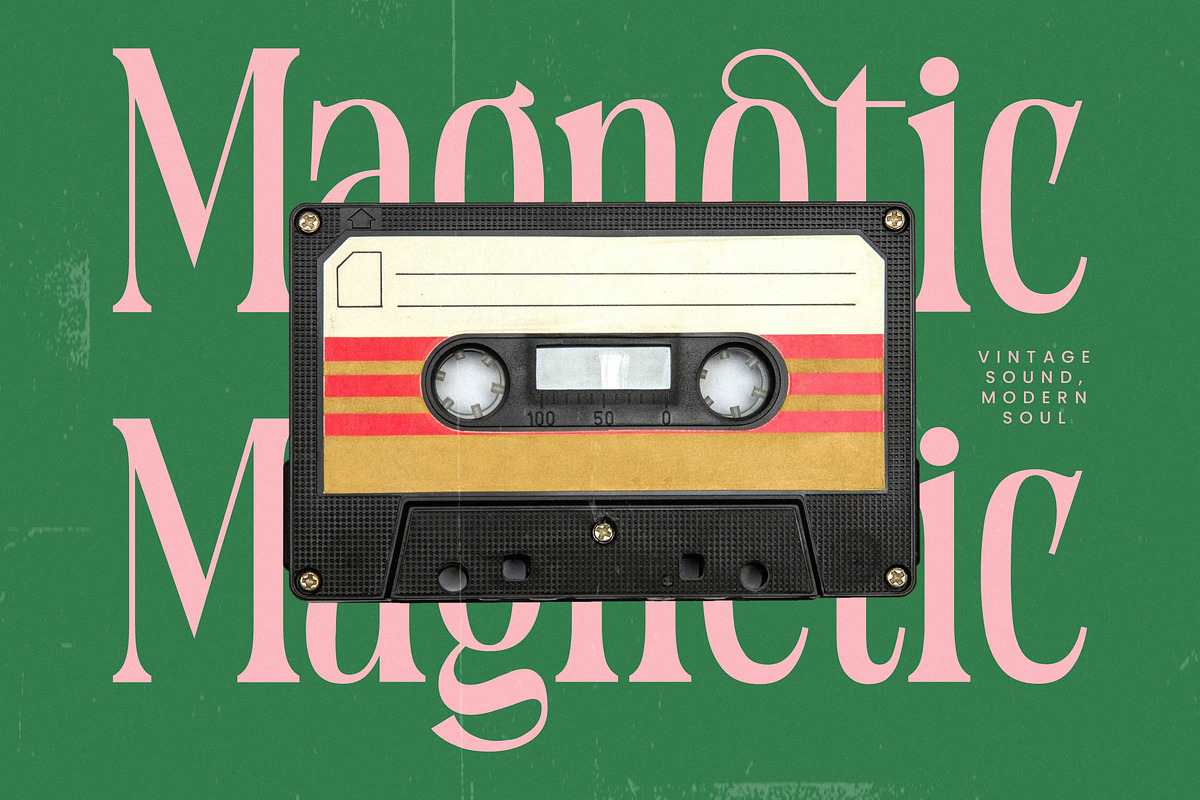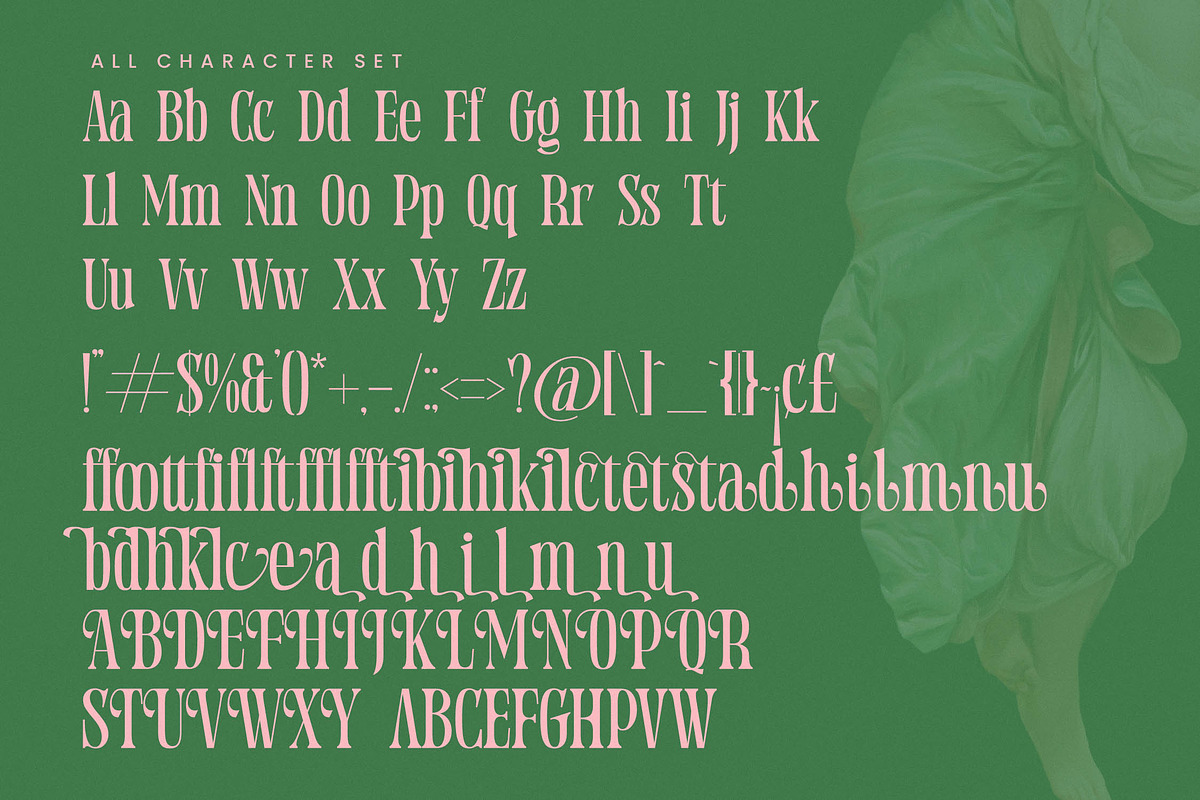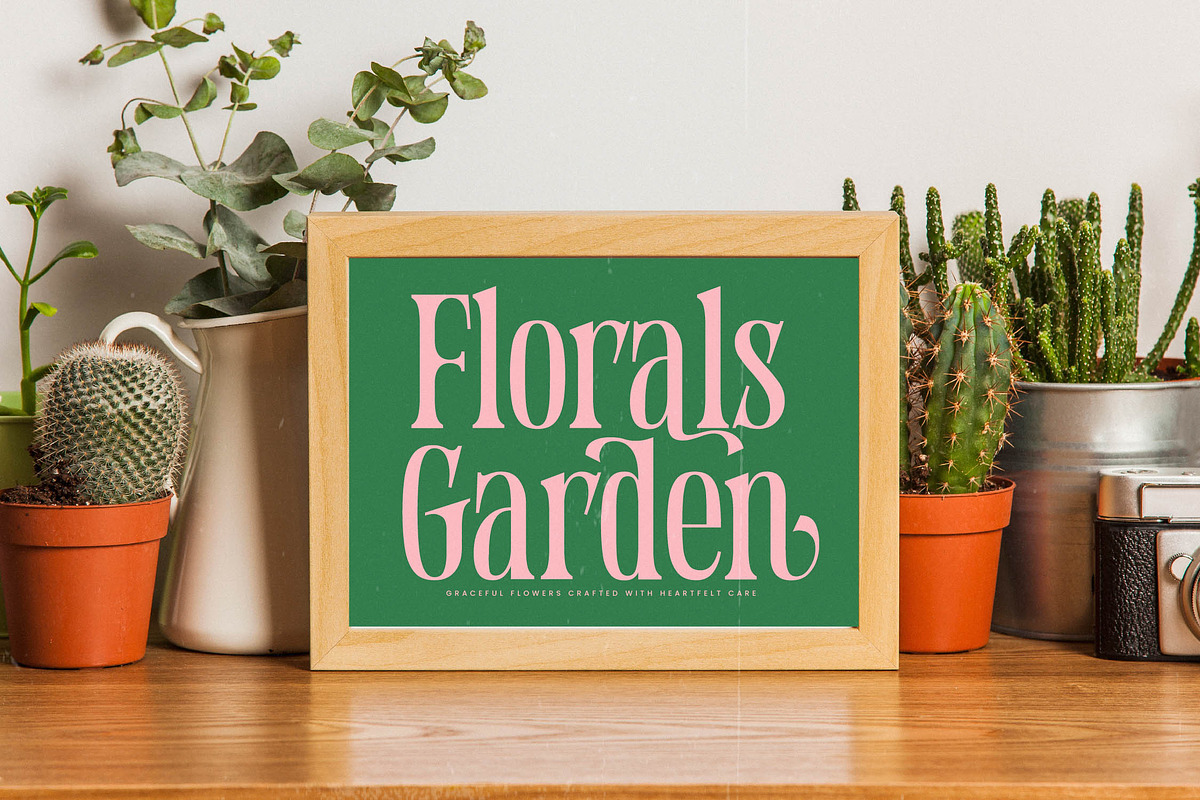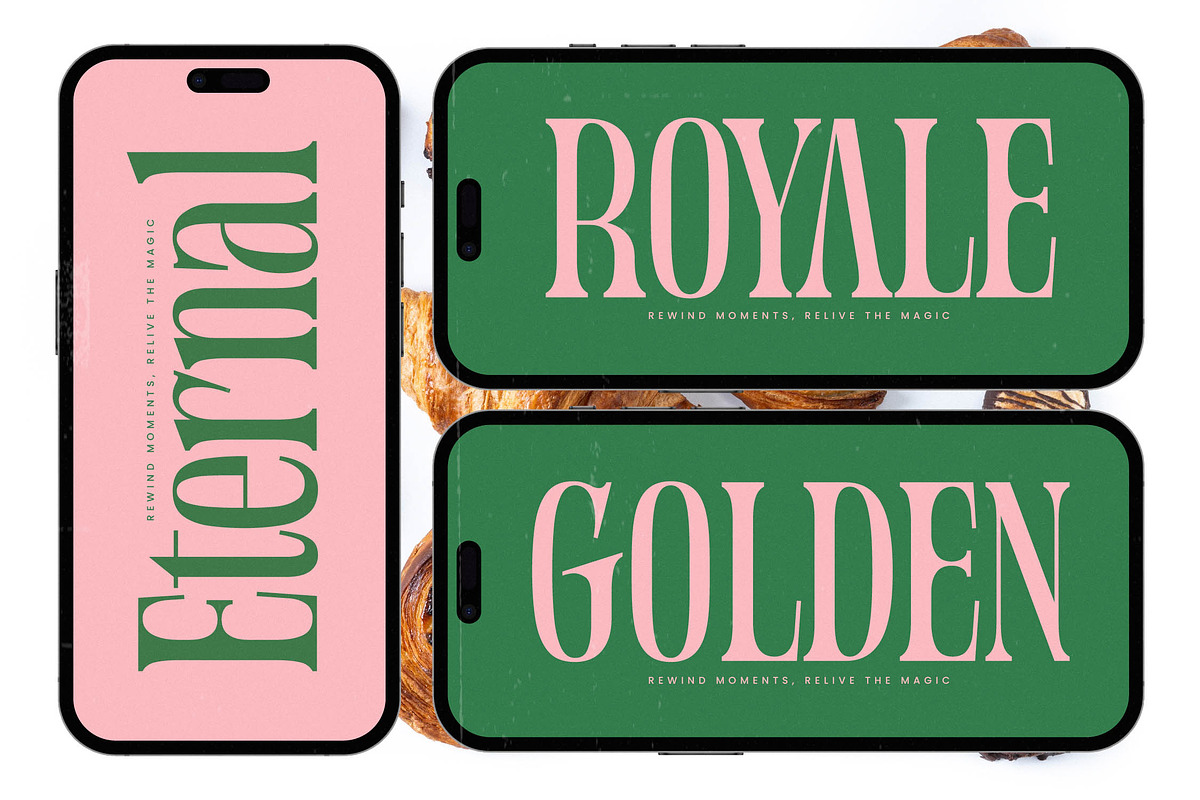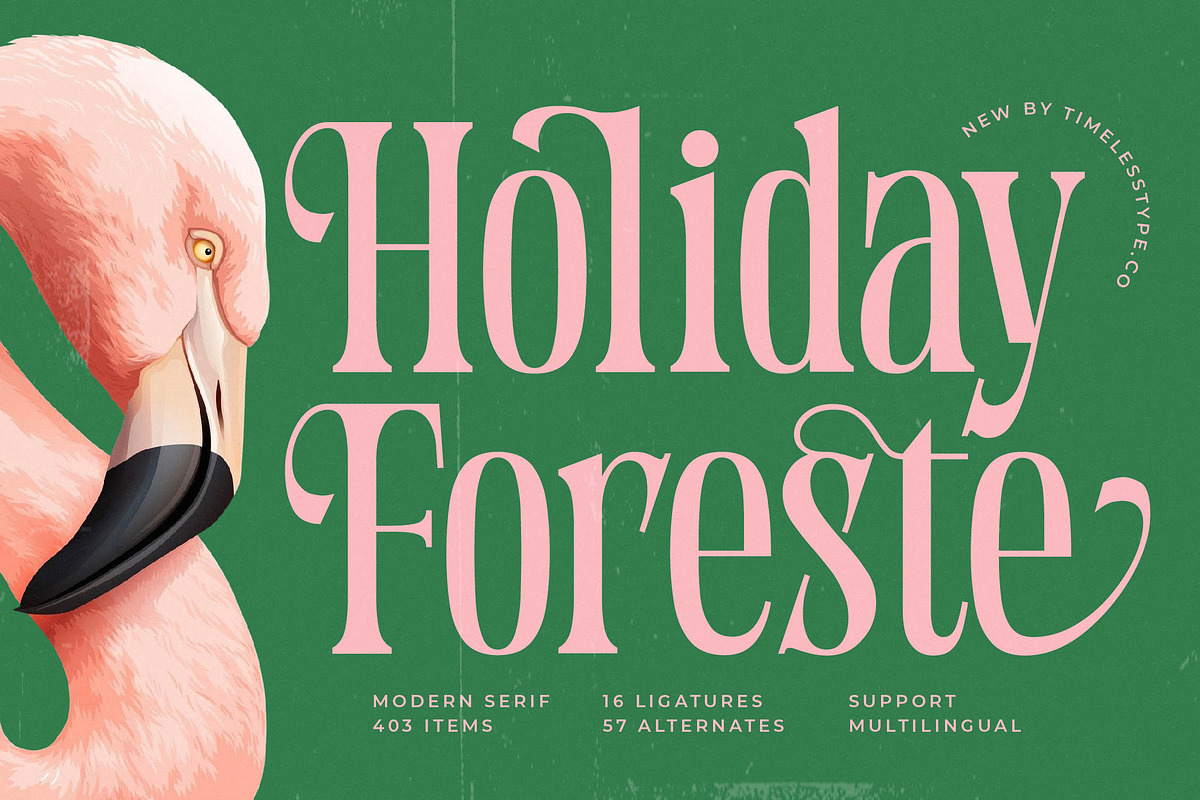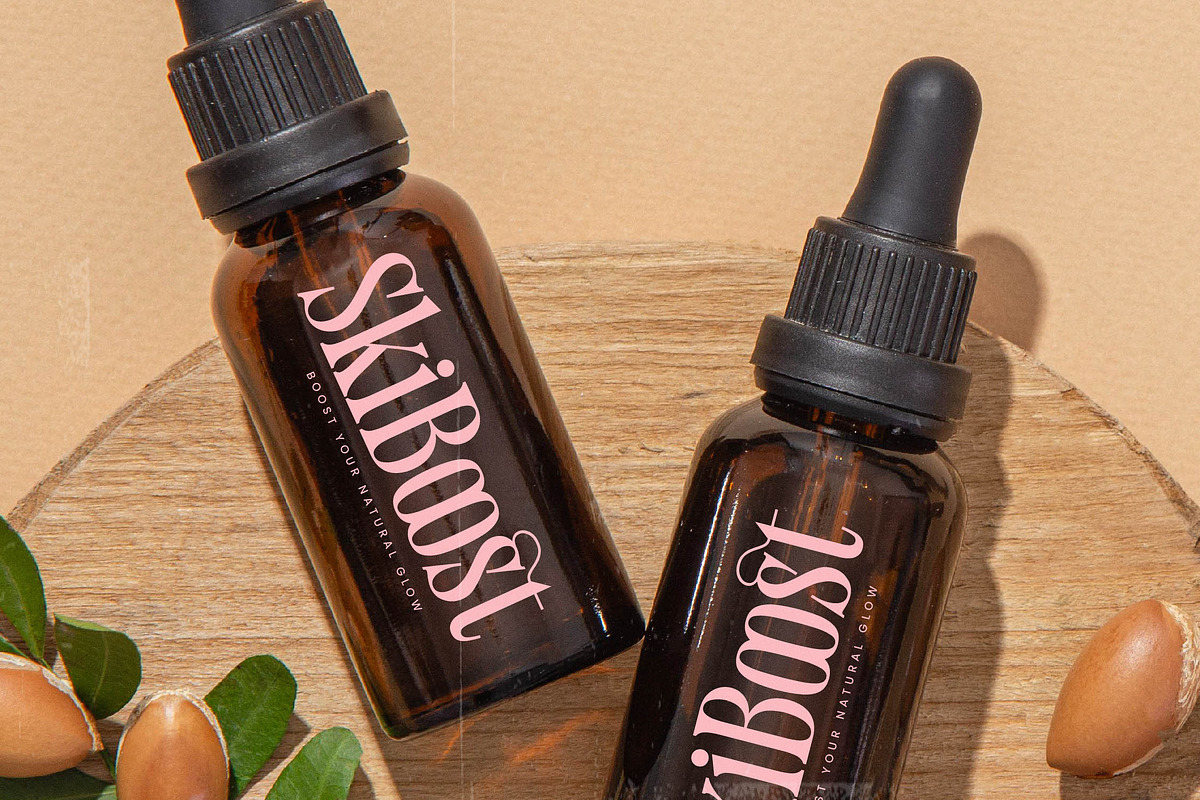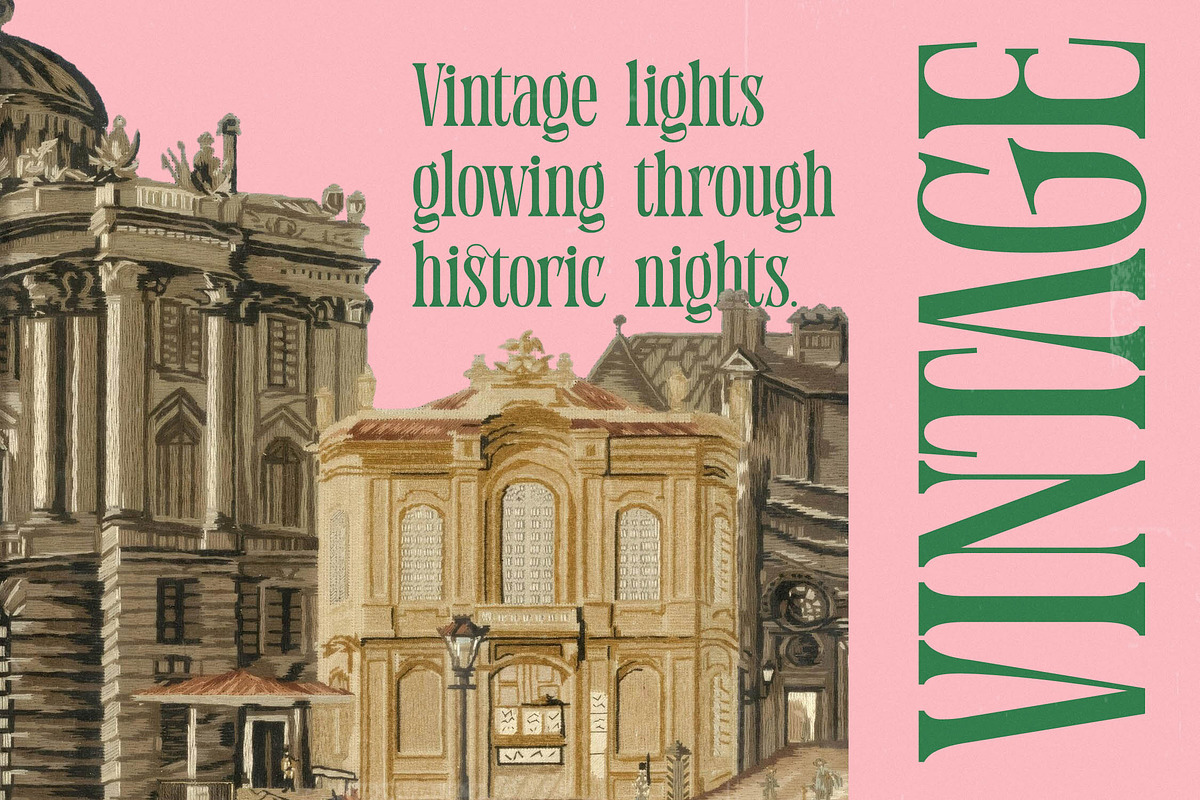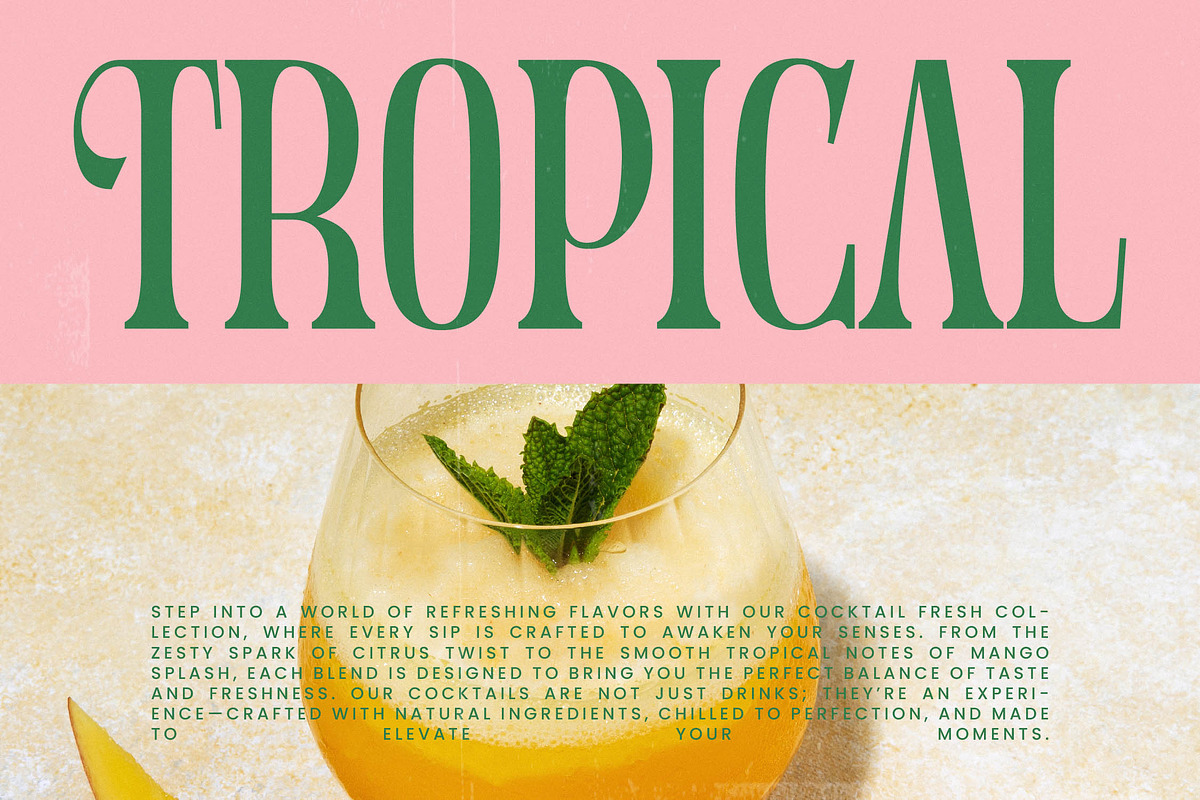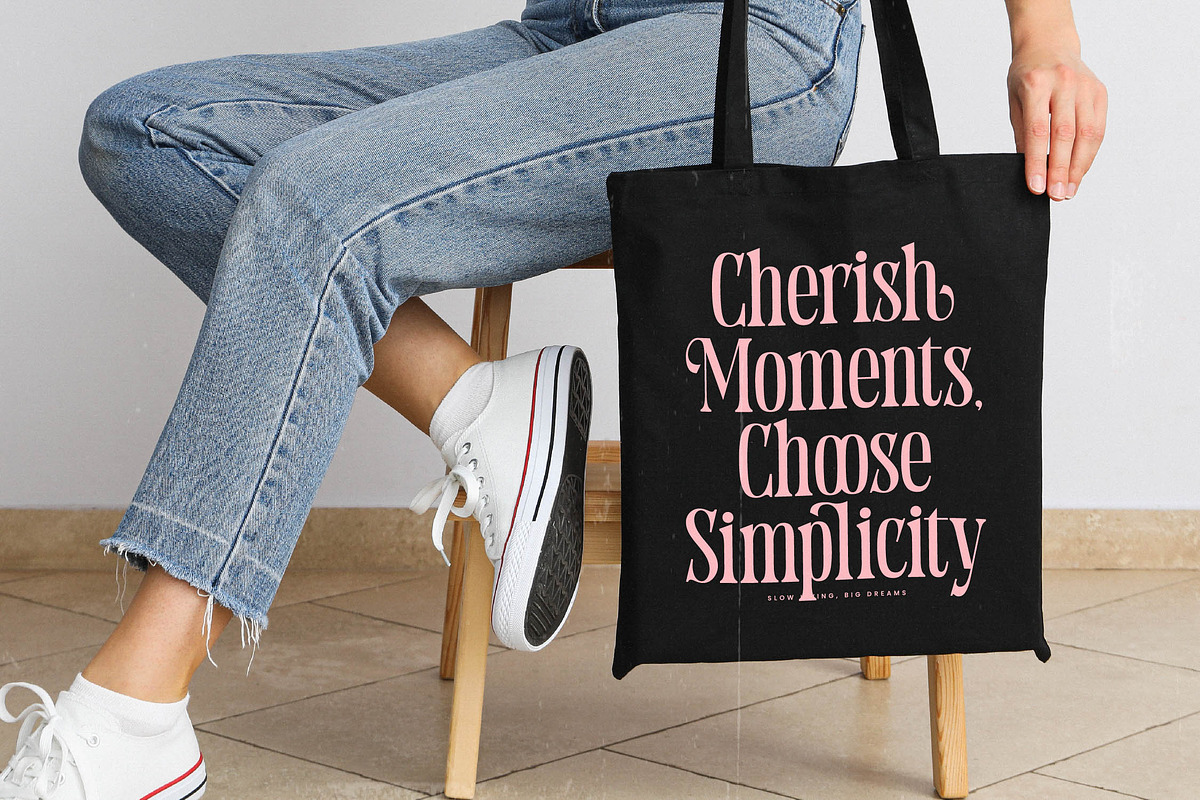
Holiday Foreste Modern Serif Font
Experience the whimsical elegance of Holiday Foreste, a typeface that dances effortlessly between high-end sophistication and playful charm. This font captures the essence of contemporary design while maintaining a warm, inviting spirit that commands attention on any page.
Inspired by the lush, vibrant aesthetics of tropical retreats and the timeless allure of luxury fashion magazines, the letterforms bring a breath of fresh air to both digital and print media. The tall, slender silhouettes evoke a sense of grandeur and movement, mirroring the graceful curves of nature.
As a modern serif display choice, it delivers an unparalleled luxury typography experience that ensures your message stands out with a high-contrast serif aesthetic. Every stroke is meticulously crafted for maximum branding impact, making it a quintessential editorial font for projects that require a touch of distinction and class.
Perfectly aligned with the current modern serif trend, this typeface fulfills the growing demand for editorial display fonts that offer more than just standard legibility. Its character-driven typography allows designers to lean into a vintage-revival aesthetic while remaining firmly planted in contemporary design standards.
This versatile typeface is the ideal solution for high-end logo design and comprehensive branding identity systems that need to feel both established and fresh. Whether used in luxury packaging, chic editorial layouts, romantic wedding stationery, or avant-garde fashion lookbooks, it adapts seamlessly to diverse creative needs.
Beyond its striking appearance, the font includes a wealth of technical features such as unique ligatures and expressive alternates to customize every word. Designers will appreciate the inclusion of elegant swashes and full multilingual support, including a wide range of international characters for global reach.
- Ligature 16 Alternate 57